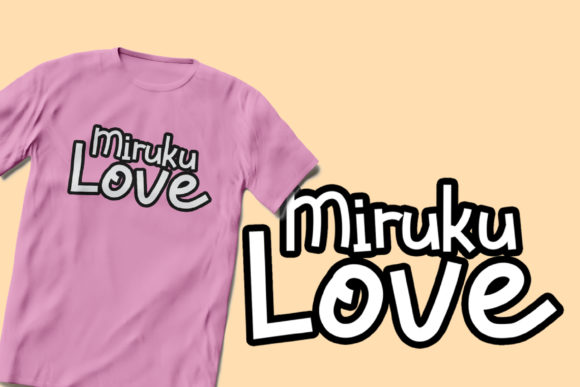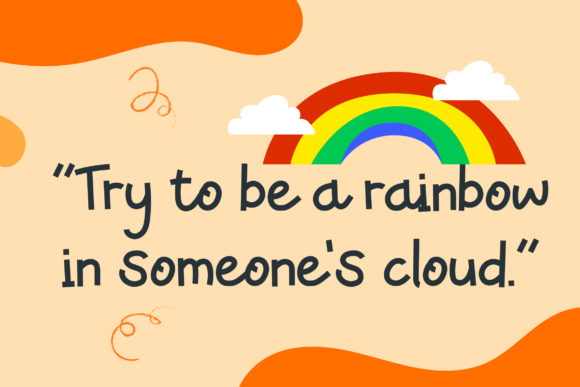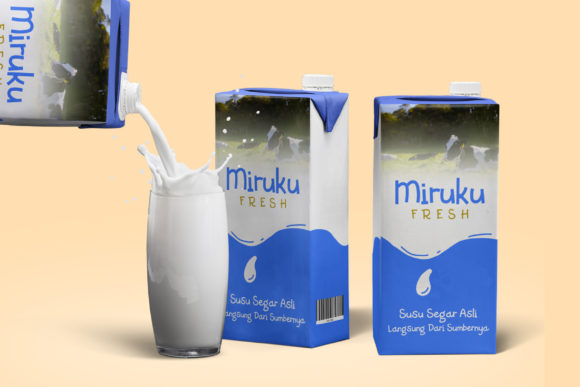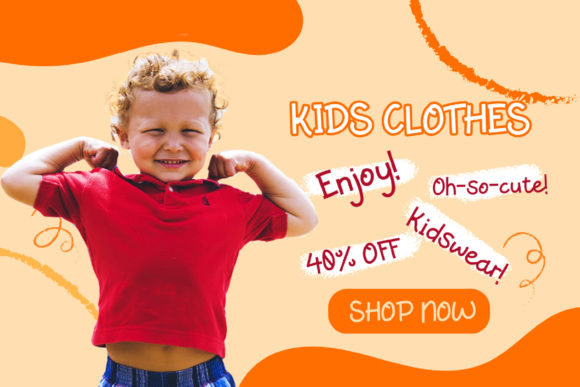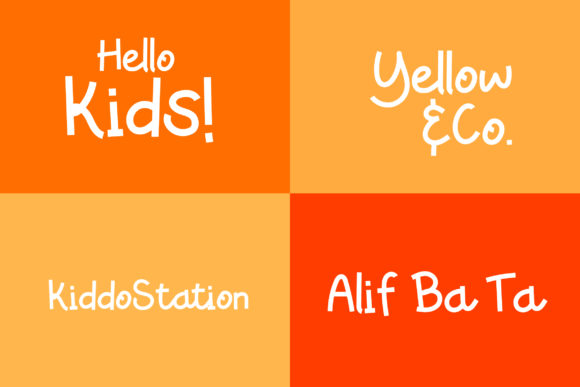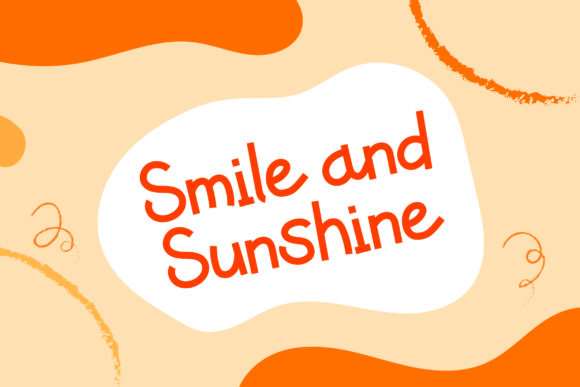
Introducing Caramelia Font: A Playful and Modern Kid’s Font
Are you looking for a font that can add a touch of playfulness and modernity to your designs? Look no further than Caramelia Font! This delightful font is perfect for designers and crafters who want to create engaging and visually appealing content for kids. In this article, we’ll explore the unique features of Caramelia Font and how it can inspire your next creative project.
A Unique and Modern Look
Caramelia Font boasts a unique and modern look that sets it apart from other kid’s fonts. Its letters are designed with a wonderfully light appeal that makes it perfect for use in a variety of design projects, from children’s books and educational materials to craft projects and DIY tutorials. The font’s modern aesthetic ensures that it will appeal to kids and adults alike, making it an excellent choice for designs that need to resonate with a wide audience.
Playful and Fun
Caramelia Font is a playful font that is sure to bring a smile to anyone’s face. Its letters are designed with a sense of whimsy and fun, making it perfect for designs that need to capture the imagination of kids. Whether you’re creating a children’s book, a craft project, or a DIY tutorial, Caramelia Font is sure to add a touch of playfulness and personality to your design.
Caramelia Font is an excellent choice for designers and crafters who want to create engaging and visually appealing content for kids. The font is easy to read and use, making it perfect for a variety of design projects, from print materials like brochures and posters to digital content like ebooks and social media graphics. Whether you’re a professional designer or a crafter looking for a fun and creative font, Caramelia Font is sure to inspire your next project.
Key Features of Caramelia Font
- Unique and modern look: Caramelia Font boasts a unique and modern aesthetic that sets it apart from other kid’s fonts.
- Playful and fun: The font’s letters are designed with a sense of whimsy and fun, making it perfect for designs that need to capture the imagination of kids.
- Wonderfully light appeal: Caramelia Font has a wonderfully light appeal that makes it perfect for use in a variety of design projects.
- Easy to read and use: The font is easy to read and use, making it perfect for designers and crafters of all skill levels.
Inspiration for Your Next Project
Caramelia Font is sure to inspire your next creative project. Here are a few ideas to get you started:
- Children’s book: Use Caramelia Font to create a engaging and visually appealing children’s book that kids will love.
- Craft project: Add a touch of playfulness and personality to your next craft project with Caramelia Font.
- DIY tutorial: Use Caramelia Font to create a fun and easy-to-follow DIY tutorial that kids and adults will enjoy.
- Social media graphics: Use Caramelia Font to create engaging and visually appealing social media graphics that kids will love.
In conclusion, Caramelia Font is a playful kid’s font with a unique and modern look that is sure to inspire your next creative project. Its wonderfully light appeal and playful design make it perfect for use in a variety of design projects, from children’s books and educational materials to craft projects and DIY tutorials. Whether you’re a designer or crafter, Caramelia Font is an excellent choice for anyone looking to add a touch of playfulness and personality to their designs.
Get Creative with Caramelia Font
So why wait? Get creative with Caramelia Font today and see how it can inspire your next project. With its unique and modern look, playful design, and wonderfully light appeal, Caramelia Font is sure to be a hit with kids and adults alike.